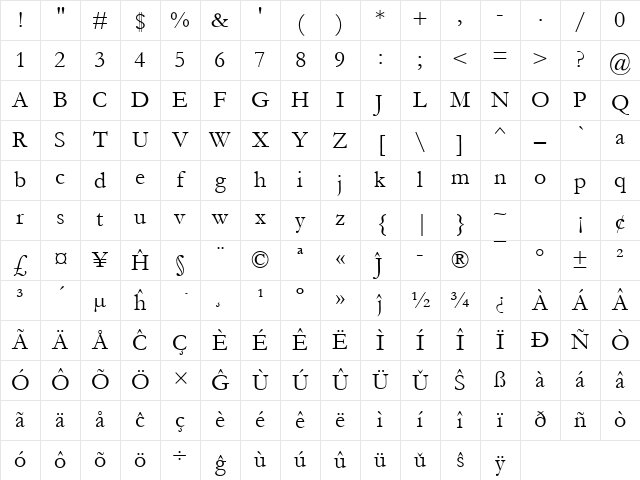
Garamond MT Eo Regular
Complete Garamond MT Eo Regular glyph index. Displaying only characters natively supported by Garamond MT Eo Regular font.
Design Context for Garamond MT Eo
Garamond MT Eo is a composed and adaptable typeface that performs quietly and consistently across a wide range of design contexts.